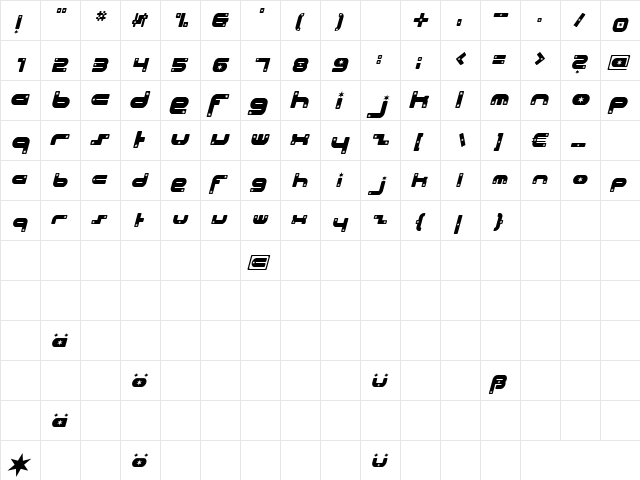
Beach House Stars Italic
Design Context for Beach House Stars Typeface
Beach House Stars is a composed and adaptable typeface that performs quietly and consistently across a wide range of design contexts. Its italic angle brings a sense of urgency and motion to the letterforms.
Pro Tip: Use Beach House Stars for emphasis, pull quotes, and subheadings where its slanted energy can add rhythm to the layout.